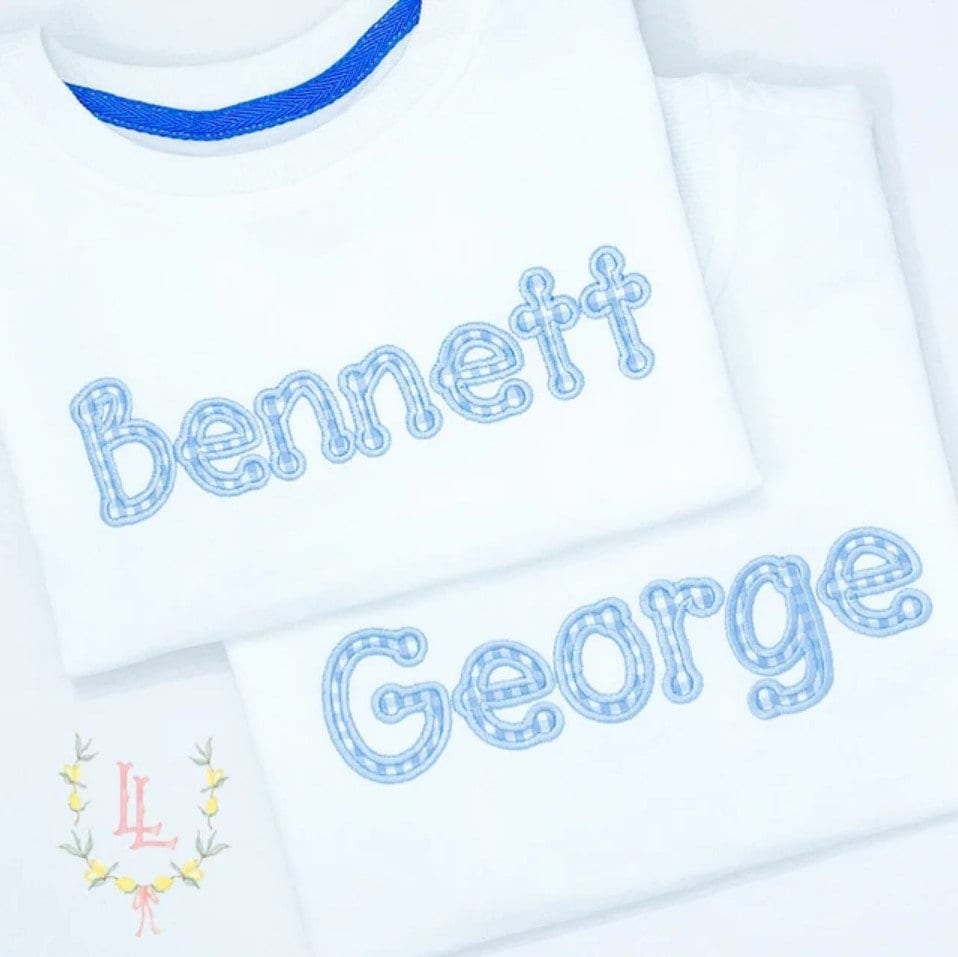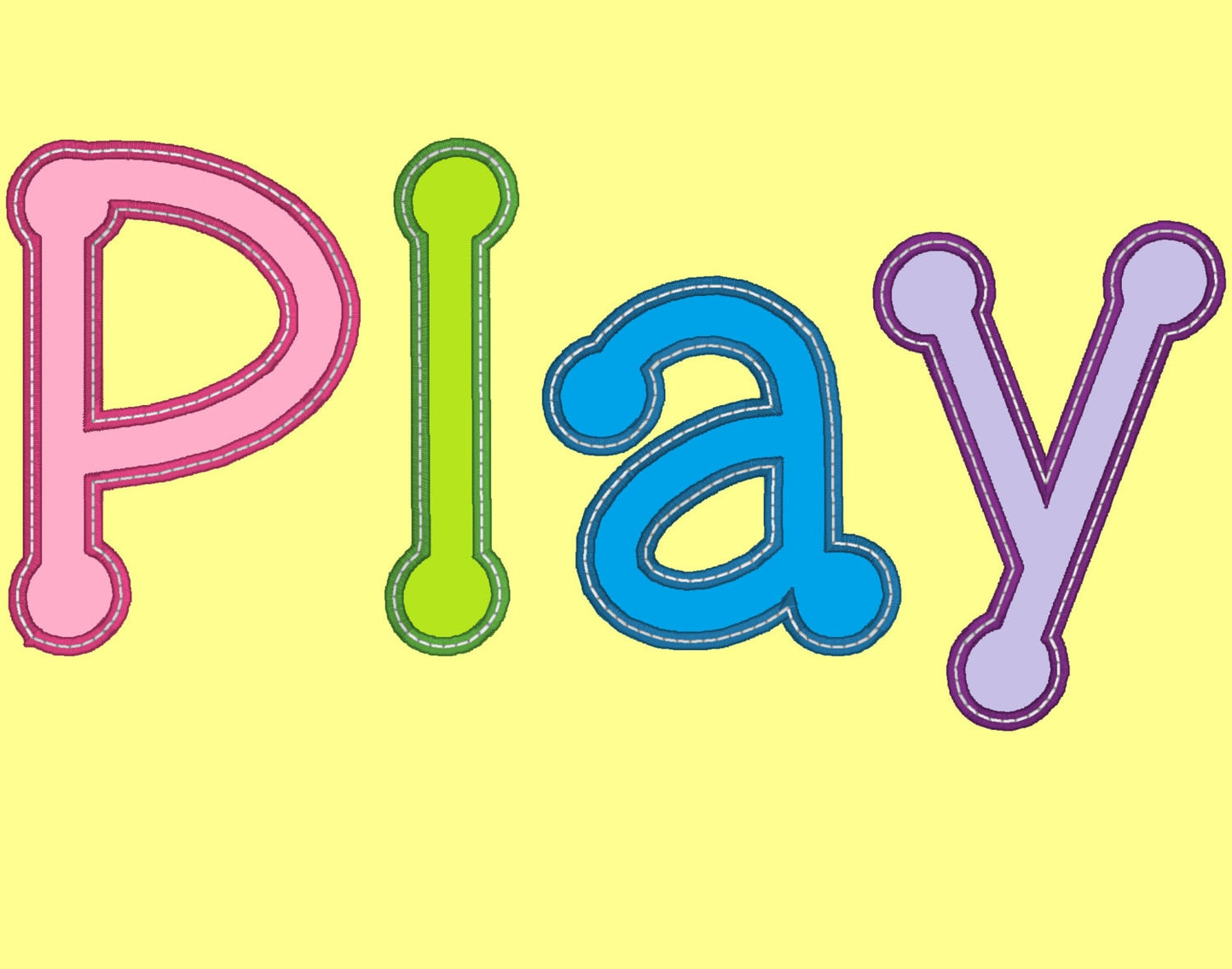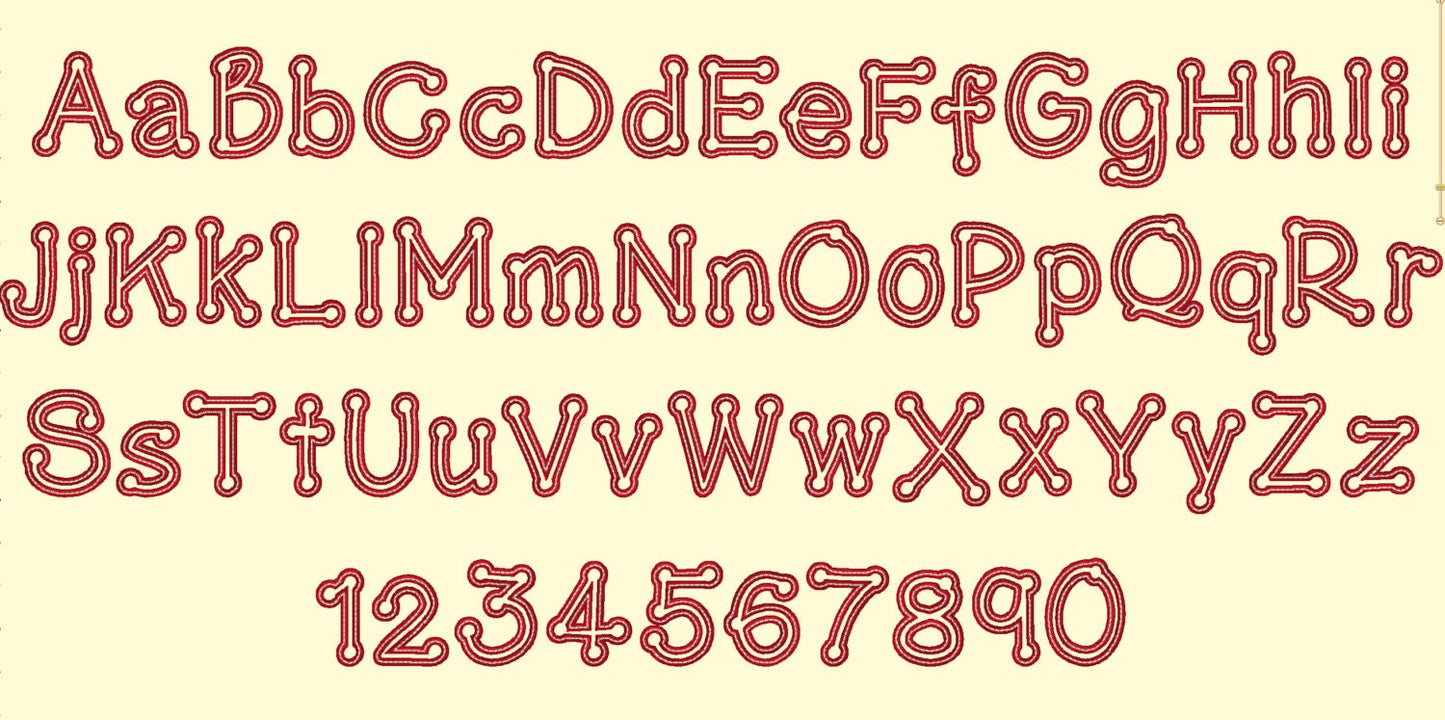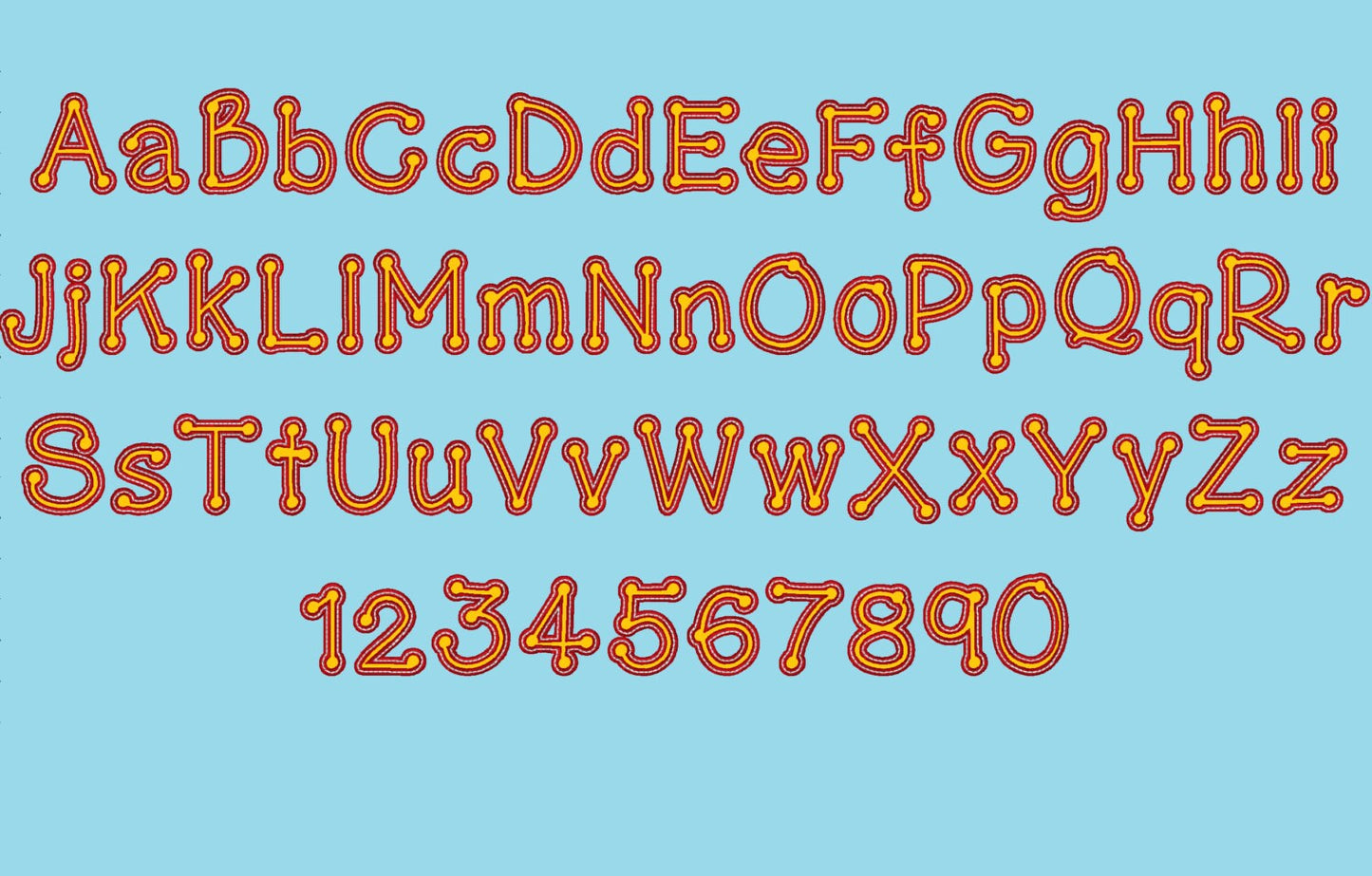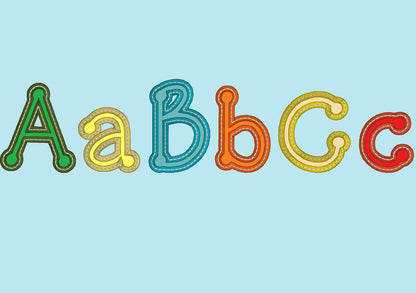
Or click to open the linkA playful dot applique font. Fun for kids' names, birthday shirts, pillows and bags.
Uppercase and lowercase letters and numbers 0 to 9. Three sizes: 2.5, 3.5 and 4.5 inches. Wide satin edge with a white top stitch for a neat look.